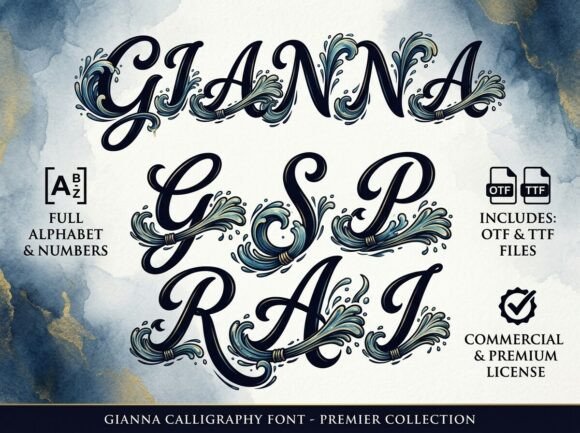
Make a Splash with Gianna: The Dynamic Display Script Font
Are you tired of using the same old fonts for your designs? Do you want to add a touch of elegance and modernity to your projects? Look no further than Gianna, a dynamic display script font that captures the fluid energy of a painter’s brush in motion. With its unique blend of traditional copperplate calligraphy and explosive, modern twist, Gianna is the perfect font for designers and crafters looking to elevate their creative toolkit.
The Inspiration Behind Gianna
Gianna’s design is inspired by the fluid movements of a painter’s brush. The font combines the elegance of traditional copperplate calligraphy with an explosive, modern twist, making it a true showstopper. Each character is designed with a rhythmic, liquid-like momentum, giving it a sense of movement and artistic freedom that’s hard to find in traditional fonts.
What Makes Gianna Special
So, what sets Gianna apart from other fonts? Here are just a few features that make it a standout:
- Hand-illustrated ink splashes and water droplets: Every stroke of Gianna features hand-illustrated ink splashes and water droplets, giving it a truly unique and dynamic look.
- Combining elegance and modernity: Gianna seamlessly blends traditional copperplate calligraphy with modern, edgy elements, making it perfect for designers who want to add a touch of sophistication to their projects.
- Liquid-like momentum: Each character is designed with a rhythmic, liquid-like momentum, giving Gianna a sense of movement and energy that’s hard to find in traditional fonts.
Gianna is the perfect font for a wide range of creative projects, including:
- High-end beauty branding: Gianna’s elegant, sophisticated look makes it perfect for high-end beauty brands looking to add a touch of luxury to their branding.
- Artisanal ink or paint product packaging: The font’s hand-illustrated ink splashes and water droplets make it a natural fit for artisanal ink or paint product packaging.
- Creative studio logos: Gianna’s dynamic, modern look makes it perfect for creative studio logos that need to stand out from the crowd.
- Dramatic event headers: The font’s liquid-like momentum and sense of movement make it perfect for dramatic event headers that need to grab attention.
Elevate Your Creative Toolkit with Gianna
If you’re looking to elevate your creative toolkit with a font that’s truly unique and expressive, look no further than Gianna. With its dynamic, modern look and liquid-like momentum, Gianna turns every word into an expressive work of art. Whether you’re a designer, crafter, or simply someone who appreciates beautiful typography, Gianna is sure to inspire and delight.
Tips for Using Gianna Effectively
Here are a few tips for using Gianna effectively in your designs:
- Use it sparingly: Gianna is a bold, attention-grabbing font, so use it sparingly to avoid overwhelming your design.
- Experiment with different colors: Gianna’s hand-illustrated ink splashes and water droplets make it perfect for experimenting with different colors and textures.
- Pair it with a neutral font: Gianna’s bold, dynamic look makes it perfect for pairing with a neutral font to create visual interest and contrast.
In conclusion, Gianna is a dynamic display script font that’s sure to make a splash in your designs. With its unique blend of traditional copperplate calligraphy and modern, edgy elements, Gianna is the perfect font for designers and crafters looking to add a touch of elegance and sophistication to their projects. So why wait? Elevate your creative toolkit with Gianna today and turn every word into an expressive work of art!